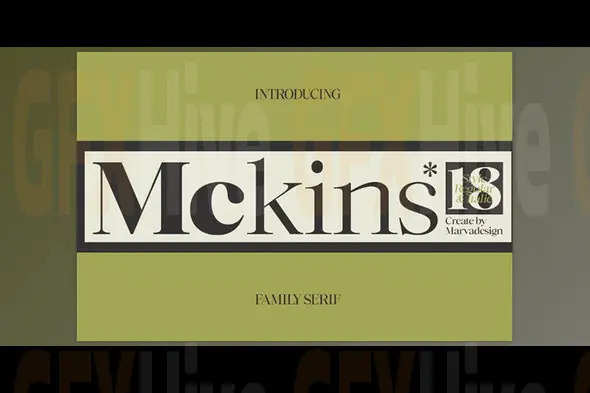
[Premium] Mckins - Family Serif Font
Mckins is a refined and versatile serif font family created by Marvadesign, blending classical elegance with modern appeal. Designed to meet the needs of both bold branding projects and the fine details required in editorial layouts, Mckins provides a perfect balance between high-contrast strokes and graceful shapes. With 18 styles, including Thin, ExtraLight, Light, Regular, Medium, SemiBold, Bold, ExtraBold, and Black, plus their corresponding italic versions, Mckins is a highly adaptable typeface for any design project.
This elegant serif font is an excellent choice for luxurious visual identities, featuring sharp terminals, intense vertical stress, and fluid curves that create an impression of sophistication and clarity. Whether you're crafting a brand identity, designing an editorial layout, or working on any print or digital project, Mckins provides the ideal balance of display quality and readability in body text. Its distinct style allows it to stand out in both large headlines and smaller text blocks.
Mckins is more than just visually appealing—it’s highly functional. With support for both uppercase and lowercase letters, multilingual characters, ligatures, and alternate characters, this font is versatile enough to handle a variety of design needs. It includes a comprehensive set of characters, making it suitable for a global audience and diverse design applications.